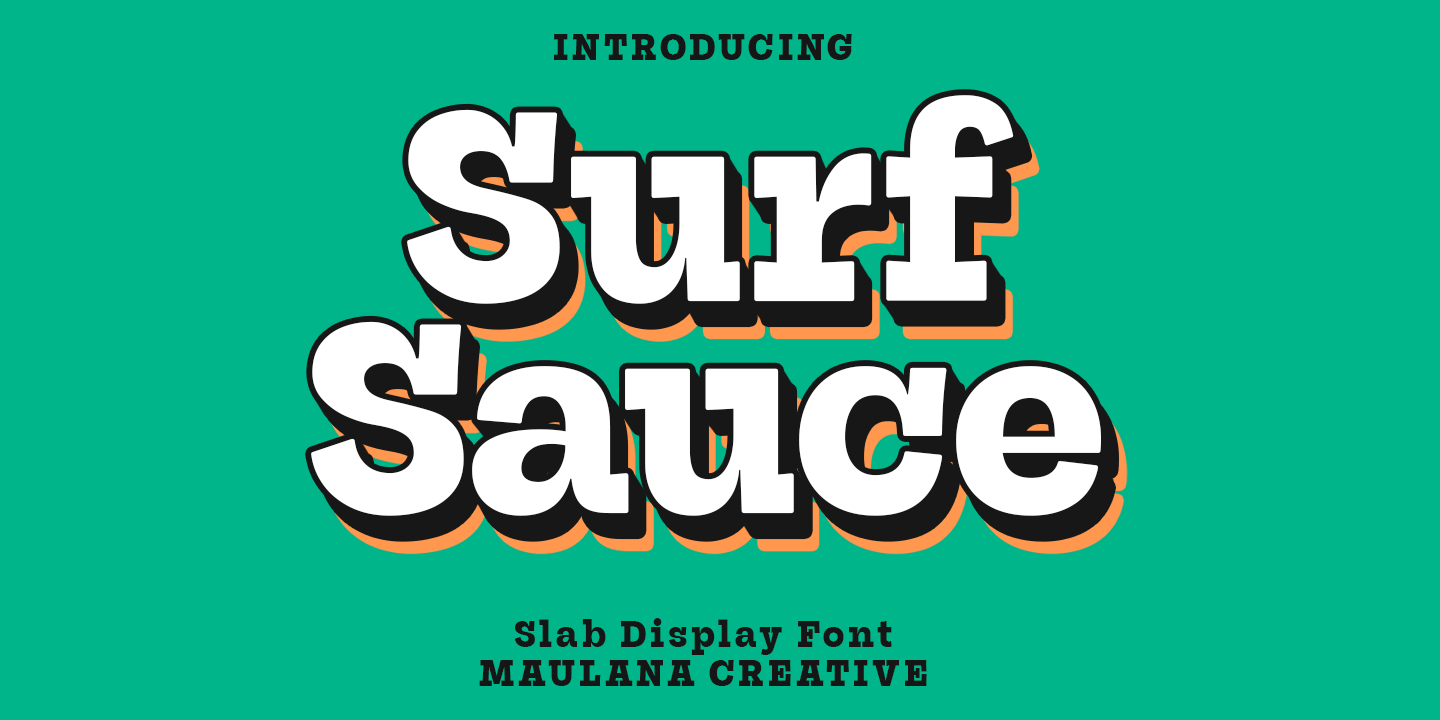
Surf Sauce Font is perfect for surf culture branding, beach restaurant signage, wave-themed designs, coastal lifestyle materials, surfing competition graphics, ocean sports promotions, beachside advertising campaigns, and fluid wave typography.
What makes Surf Sauce Font exciting is its flowing surf character that embodies wave culture and coastal lifestyle through fluid letterforms and oceanic appeal. This dynamic typeface features wave construction, surf details, and coastal personality that captures the essence of surfing culture and beach living, making it ideal for projects seeking to communicate wave energy, surf authenticity, and coastal freedom with genuine surf appeal and oceanic sophistication.
The Surf Sauce Font family includes Light, Regular, and Bold weights, each maintaining the characteristic wave flow and surf appeal that define this distinctive typeface's coastal personality and surf sophistication.
Surf Sauce Font Free Download provides access to a typeface that perfectly captures the essence of surf culture and wave riding lifestyle. This flowing font brings authentic surf aesthetics to contemporary projects, making it essential for surf brands, beach resorts, and coastal companies targeting audiences who live the surf lifestyle and embrace wave culture. The font's wave construction and surf details ensure immediate recognition of coastal authenticity while its distinctive character creates oceanic connections among individuals passionate about surfing and beach living. Whether designing surf competition materials, beach brand campaigns, or coastal lifestyle communications, this font delivers the surf authenticity and wave sophistication that surf enthusiasts expect. Its oceanic foundation and surf symbolism make it indispensable for projects celebrating surf culture, wave riding, and the freedom of coastal living, ensuring communications resonate with audiences who value the surf spirit, wave energy, and coastal authenticity that define genuine surf experiences and beach lifestyle across diverse surfing and coastal applications.